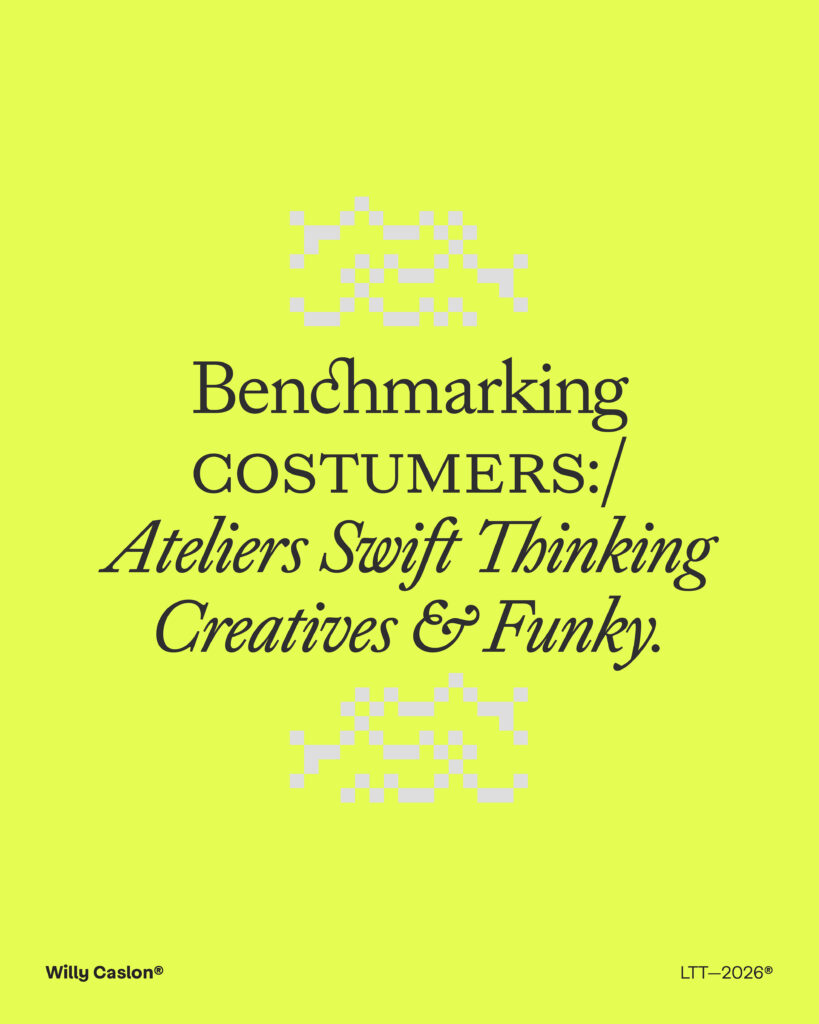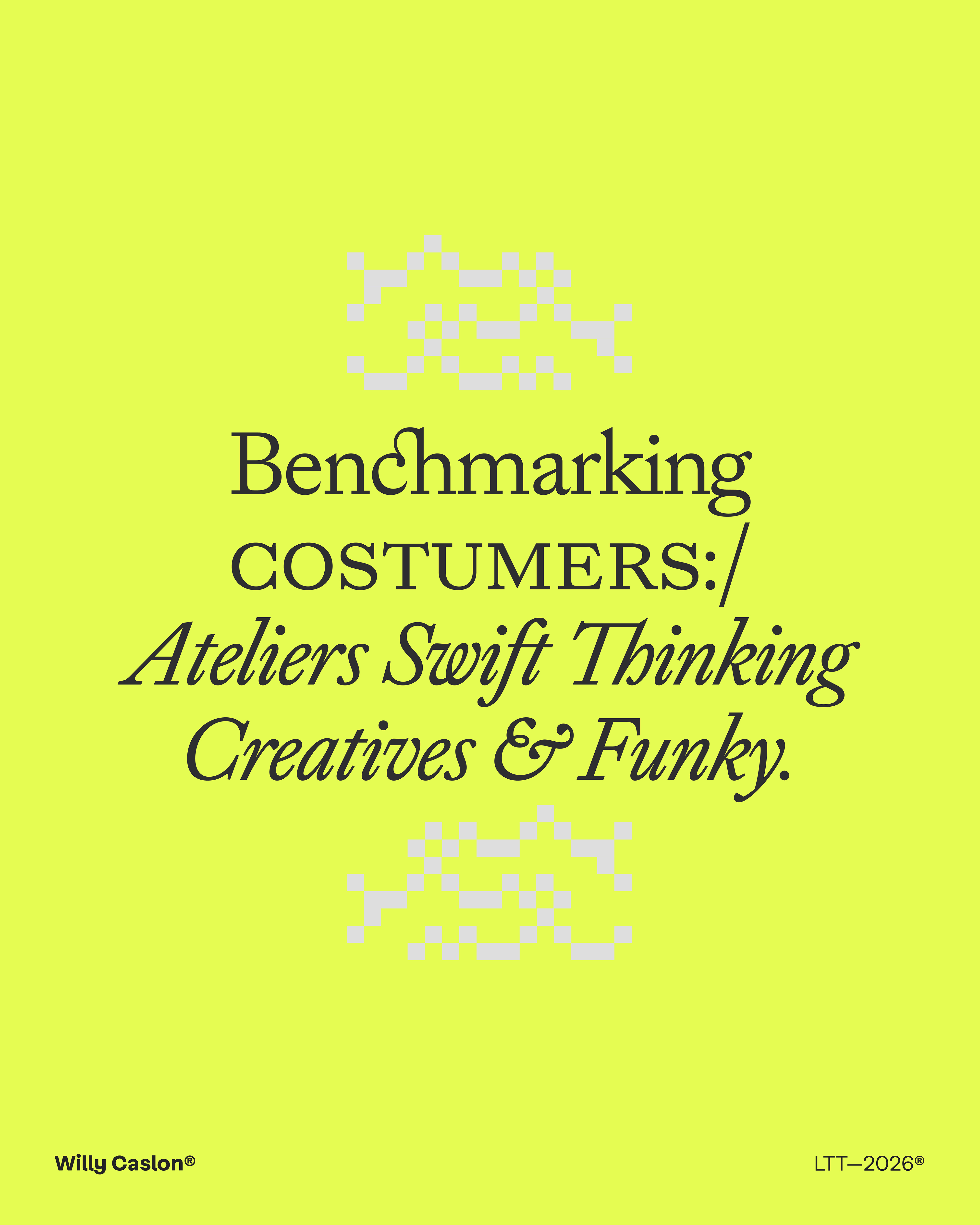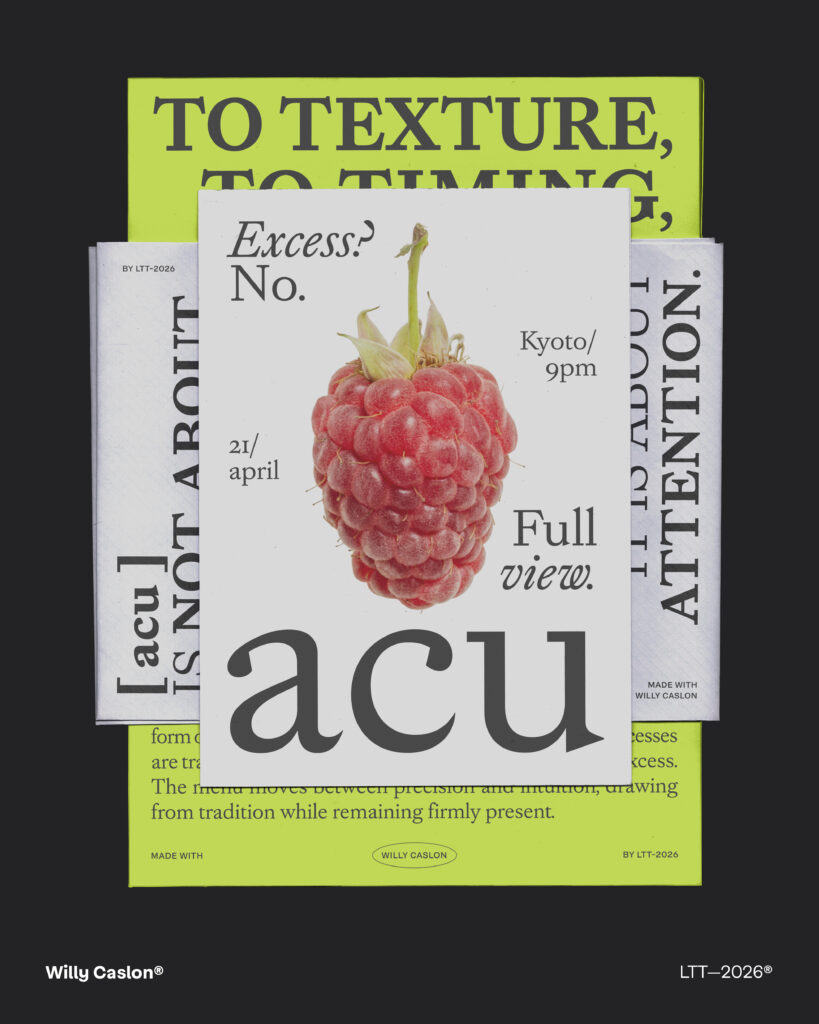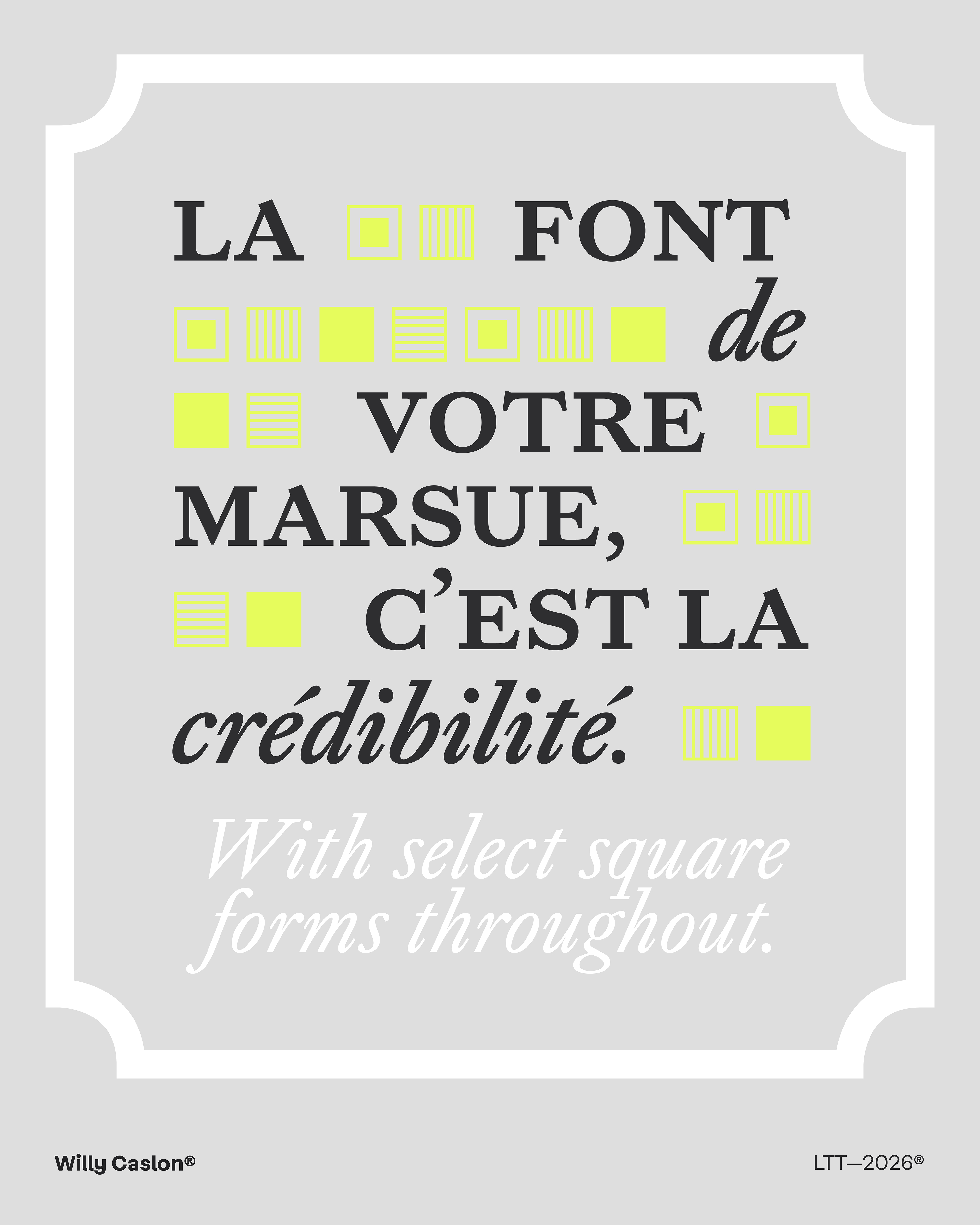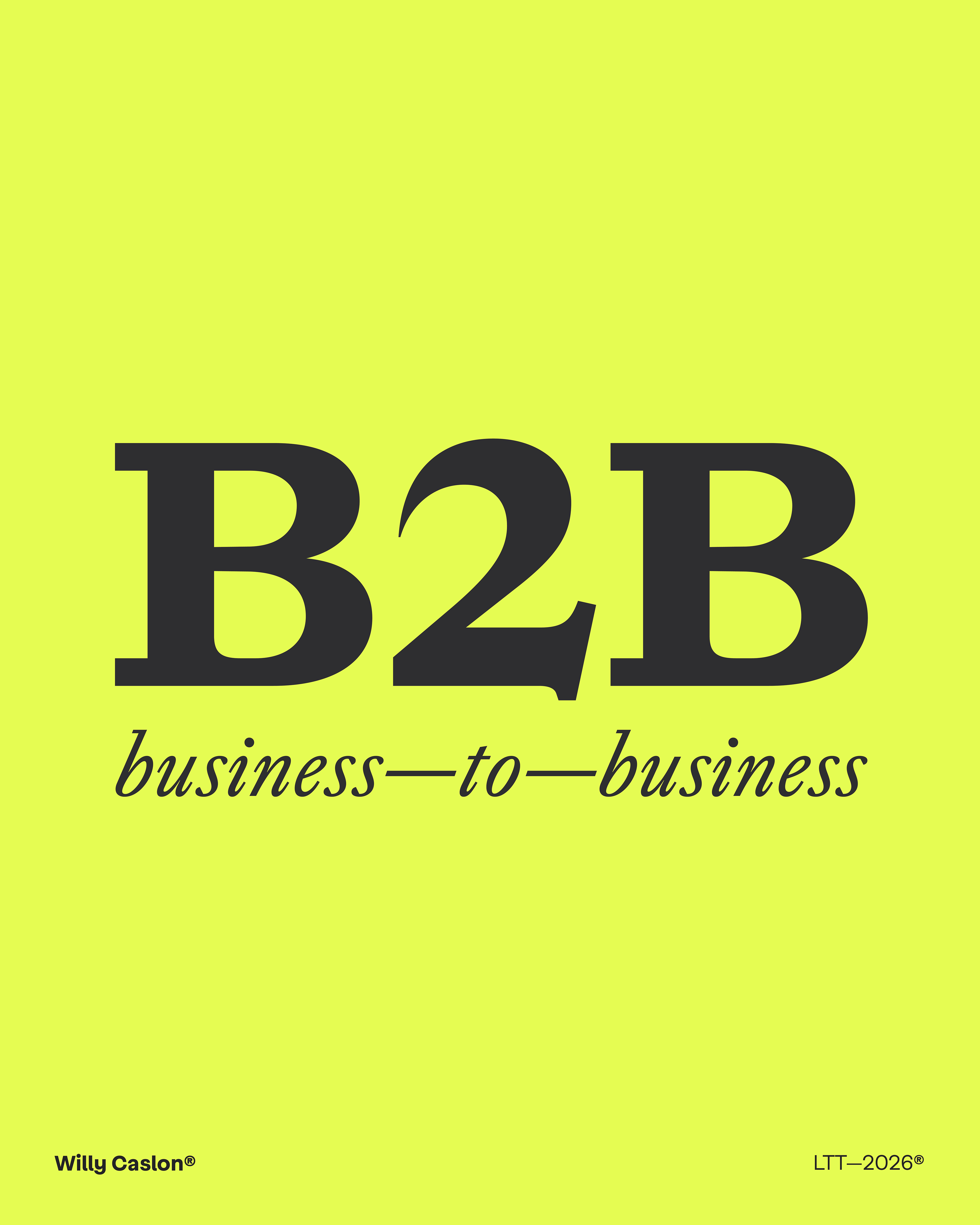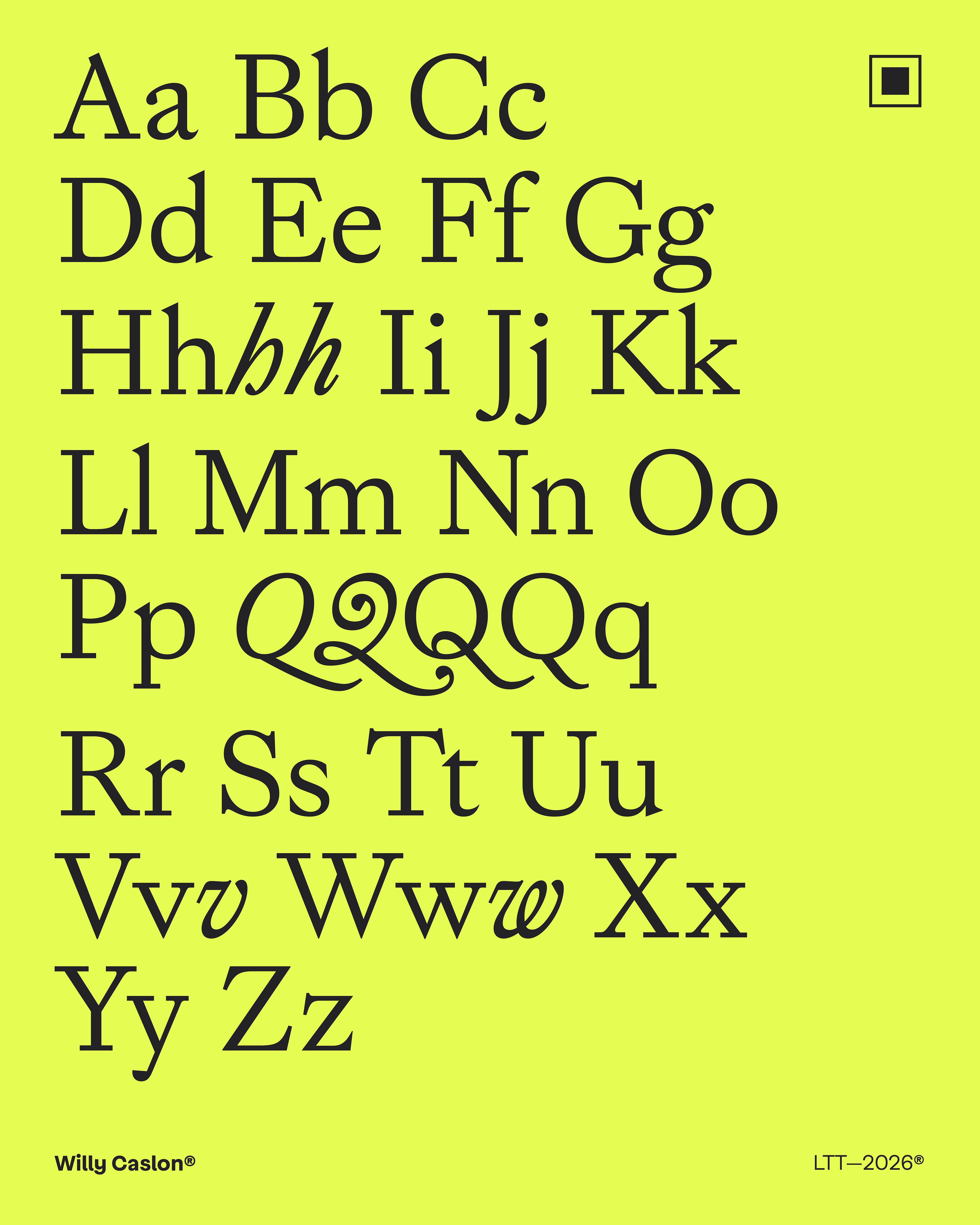
Willy Caslon
Yes, another Caslon (but this one’s worth it)
Another Caslon, yes. But not just any Caslon. Willy Caslon takes one of the most recognizable references in typography and adapts it to today’s pace, with a more refined design, taut forms, and a readability tailored for screens, paper, and everything in between. Familiar, yet with its own distinct character, it’s a serif typeface made for projects where legibility matters again.
With Willy Caslon, Latinotype returns to one of the most recognizable references in typography to ask a question that’s relevant once more: what does legibility mean in 2026? The answer lies not in nostalgia or trends, but in something simpler and perhaps more complex: the criteria used to make design decisions.
Willy Caslon takes the English tradition associated with William Caslon and tightens it slightly, refining it with a touch of sophistication. It makes it move faster. There’s tension in the design, there’s rhythm, there’s an energy that isn’t trying to be archaic, but neither is it neutral. The terminals appear more defined, the curves are restrained, and the counterforms intentionally work with the text’s color. The result feels familiar at first glance, but without settling for a sober obviousness.
And this didn’t happen by chance. There’s a reason why serifs are reappearing in places where the correct and silent sans-serif once dominated. Publishing brands, cultural brands, even fintech brands. It’s not because they want to appear conservative, but because they want to be more direct. They want to sound trustworthy without speaking with the solemnity of banks from the last century.
Willy Caslon doesn’t try to look old-fashioned or force an artificial novelty. He starts from a familiar history to offer a current tool. A Caslon that understands the present and responds with precision. He acknowledges his history but without seeming like a relic, achieving a perfect blend of distinction, freshness, and confidence.